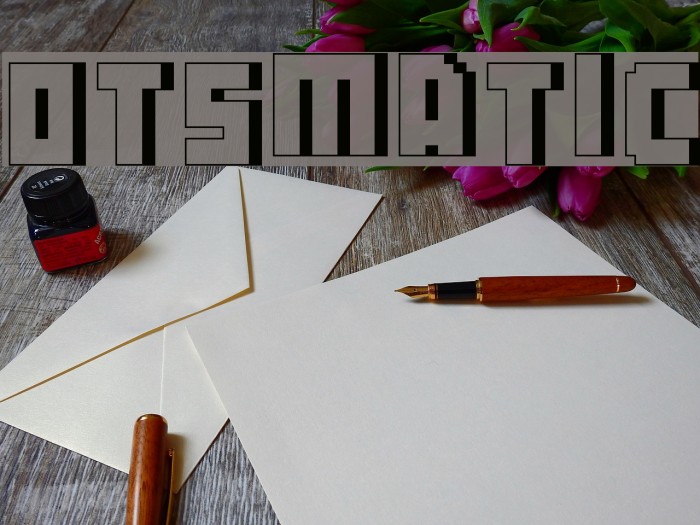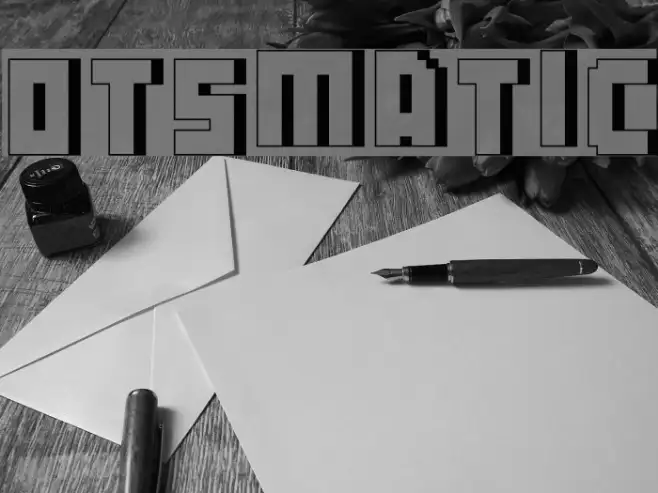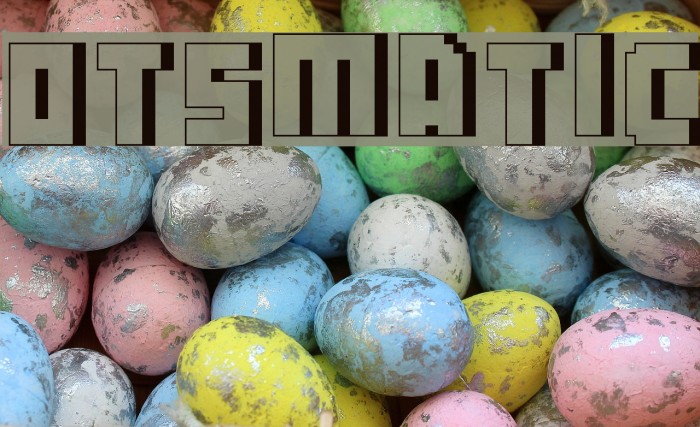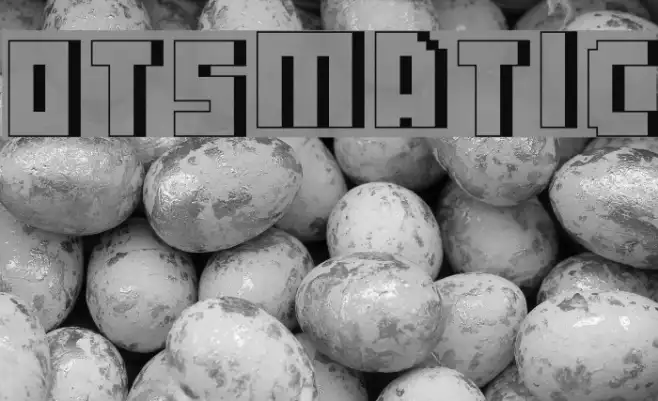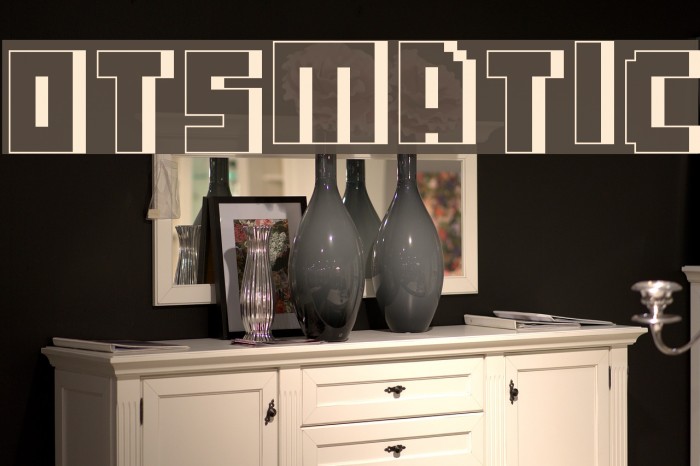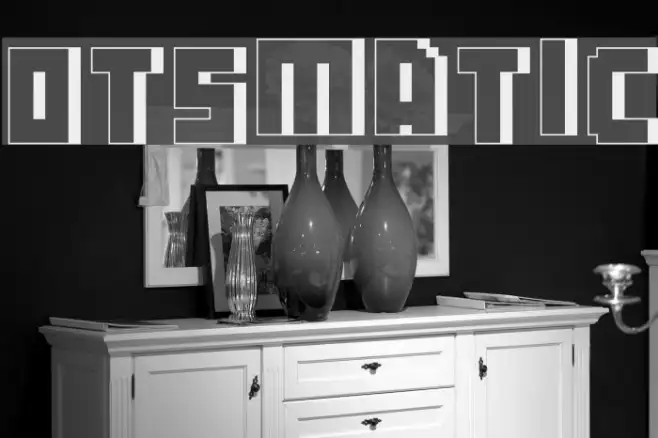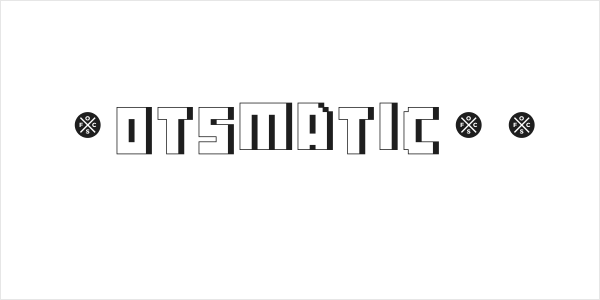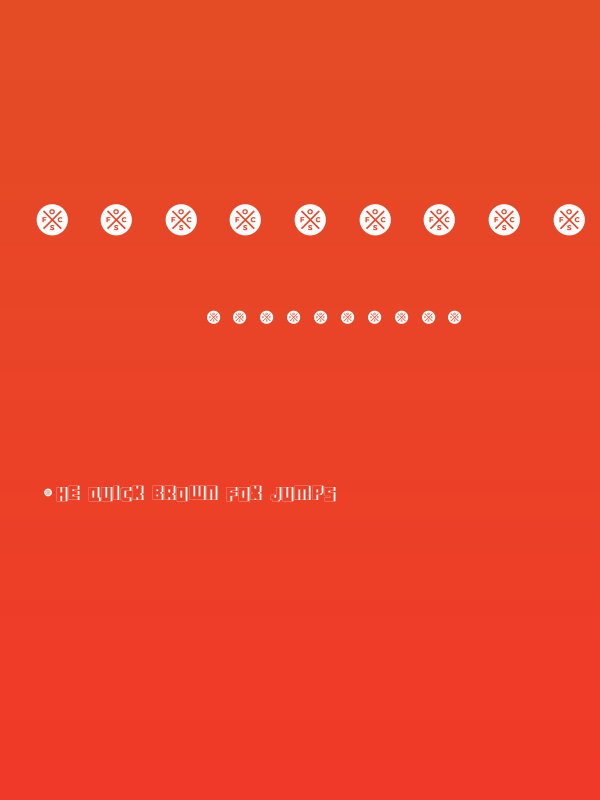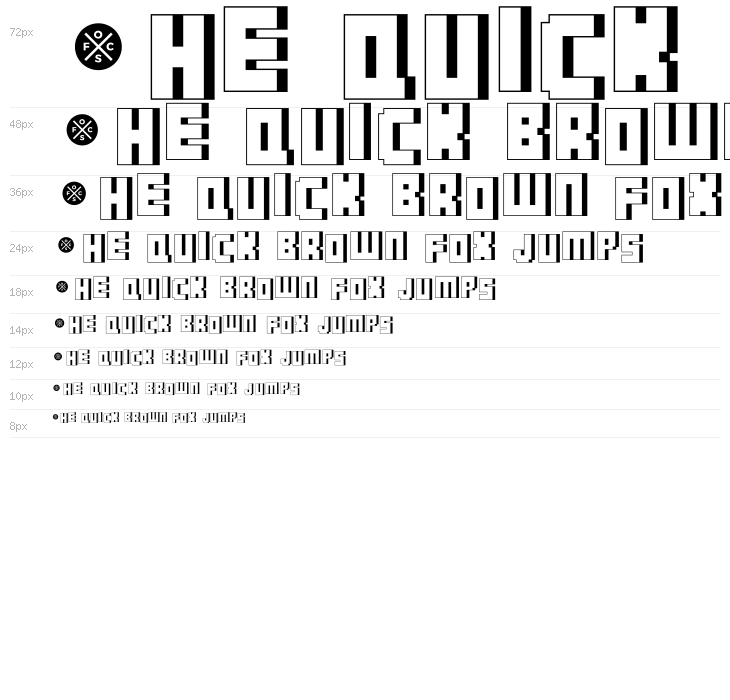
Botsmatic3D Font
Botsmatic3D Description
This font features a bold, blocky design with a distinct three-dimensional effect. The characters are constructed with sharp, angular lines that give them a pixelated, digital appearance. Each letter is outlined, enhancing the 3D illusion and making the font stand out. The uppercase letters are uniform in height, while the lowercase letters maintain a consistent style, adding to the cohesive look. The numbers and special characters follow the same design principles, ensuring a harmonious overall appearance. This font is ideal for projects that require a futuristic or tech-inspired aesthetic.
| Proposed Projects | Ideal for video game titles, tech-themed posters, digital art projects, and branding for technology companies. |